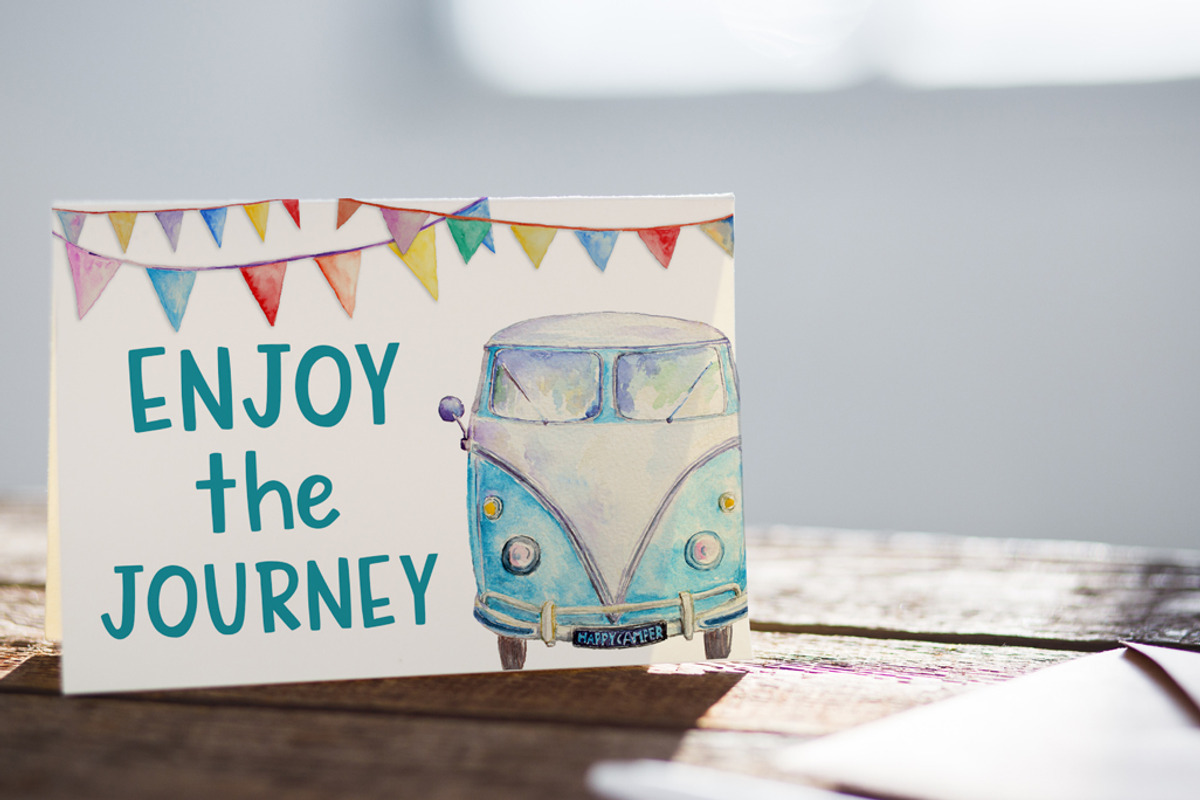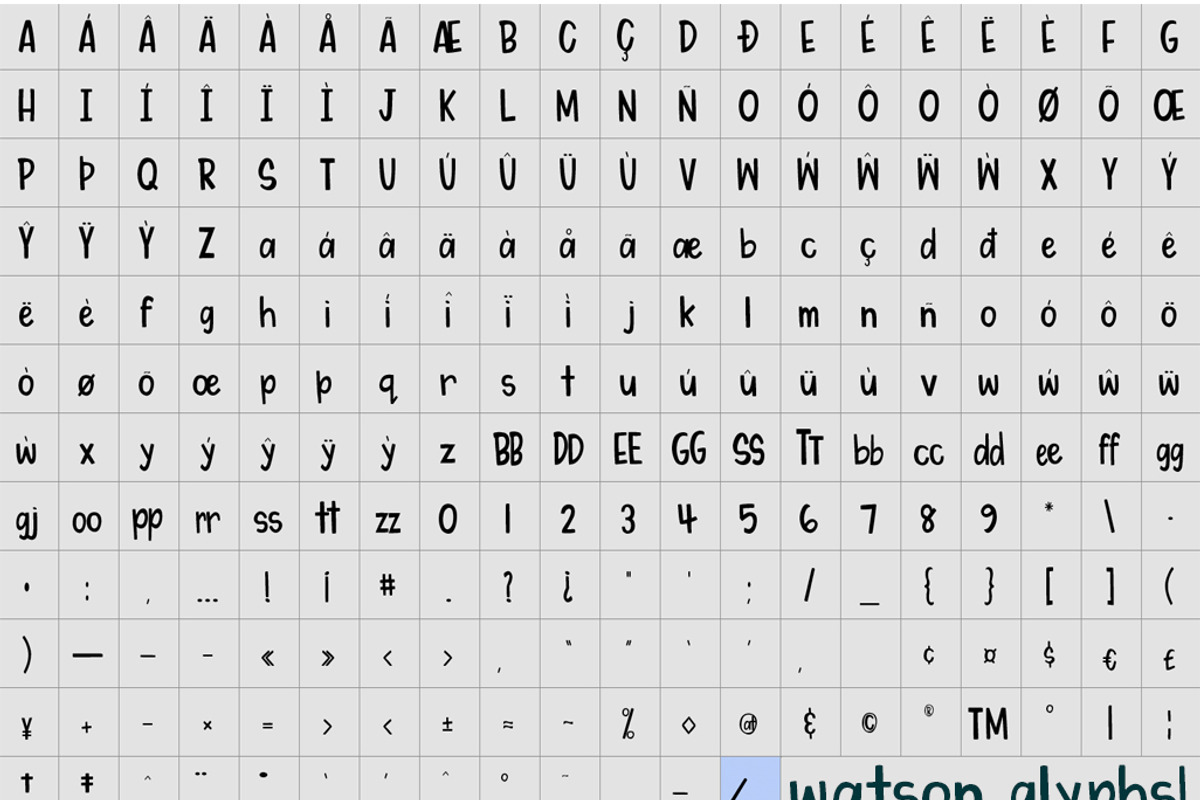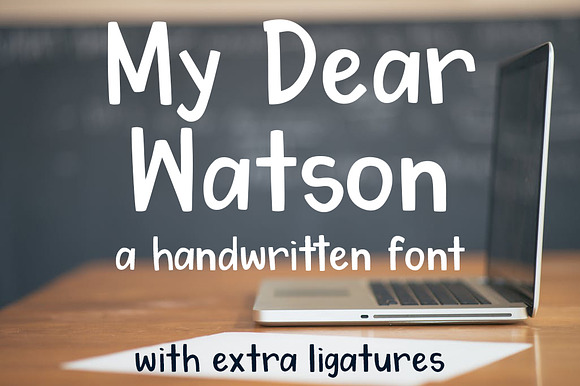
My Dear Watson Bold Hand-Lettered Font
My Dear Watson Font – Bold Hand-Lettered Typeface for Cards, Mugs & Crafts
My Dear Watson is a bold, clean, and fun hand-lettered font inspired by a love for modern hand lettering. This versatile typeface is perfect for greeting cards, coffee mugs, tumblers, logos, social media graphics, and DIY crafts.
Designed to bring personality and charm to any project, My Dear Watson combines seamlessly with other script or sans-serif fonts, making it ideal for crafters, designers, and small business owners. Whether you're working in Cricut Design Space, Adobe Illustrator, or Canva, this font will help your designs stand out with a modern handmade feel. Perfect for: -Greeting cards & invitations -Mug & tumbler designs -T-shirt and tote bag printing -Digital downloads & SVG cut files -Branding & logo design -Social media content